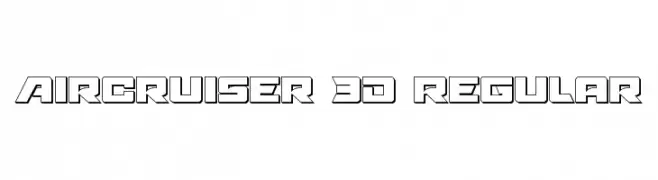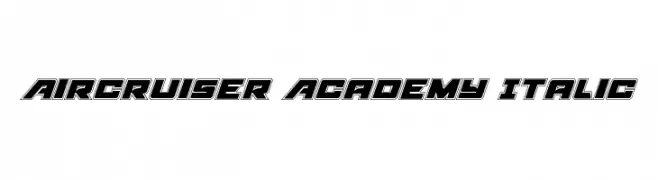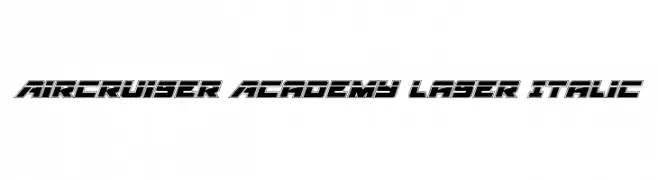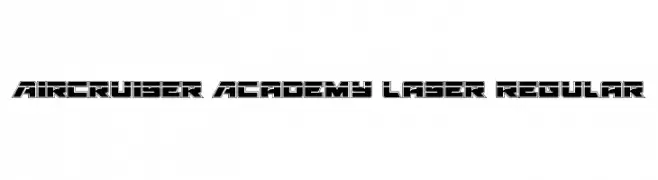
A bold, 3D geometric font with a futuristic and outlined style.
A bold, italicized font with a futuristic, outlined style.
A bold, futuristic italic font with a double-layered outline and geometric shapes.
A bold, futuristic font with geometric outlines and strong visual impact.
A bold, geometric font with a three-dimensional outline.
A bold, geometric, and condensed font with a futuristic and industrial aesthetic.
A bold, italicized, and condensed font with a modern, dynamic style.
A bold, geometric font with a futuristic and industrial style.
A bold, expanded, and italicized font with a modern, dynamic style.
A bold, 3D gradient italic font with a futuristic and dynamic style.